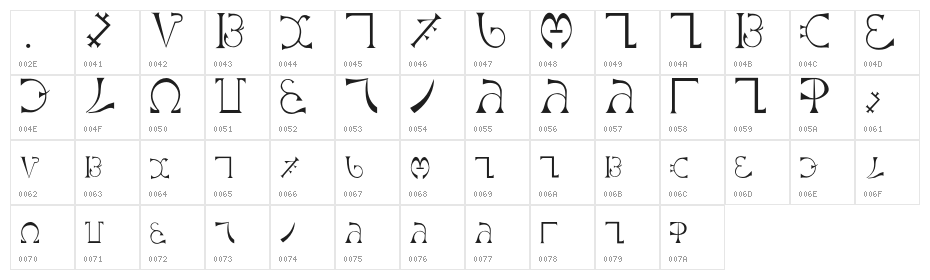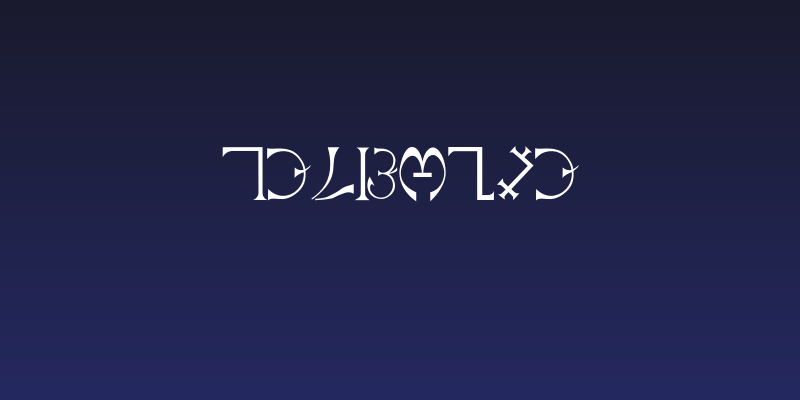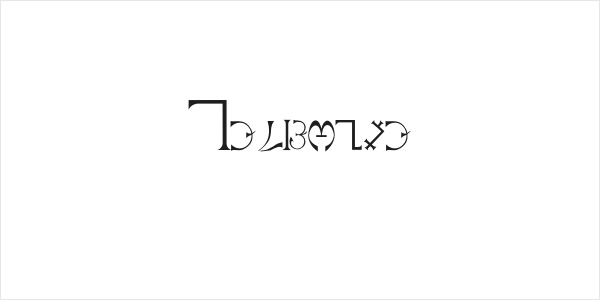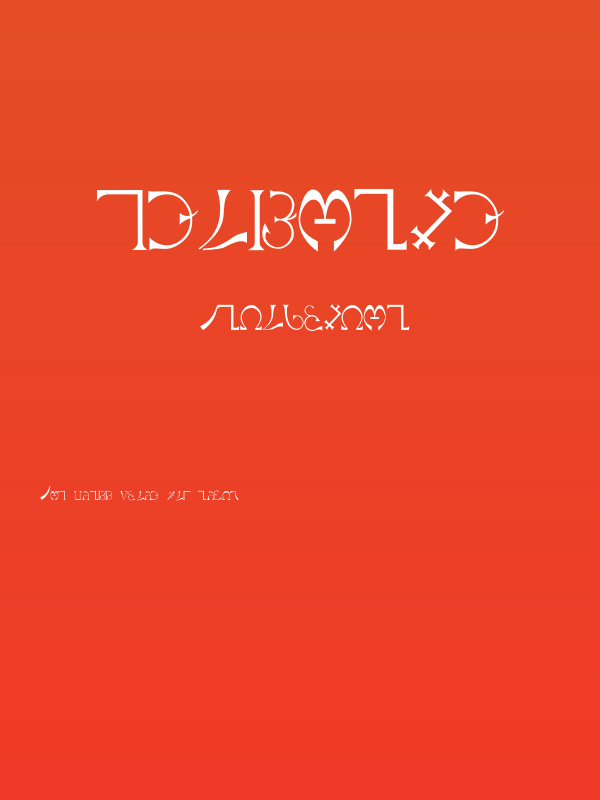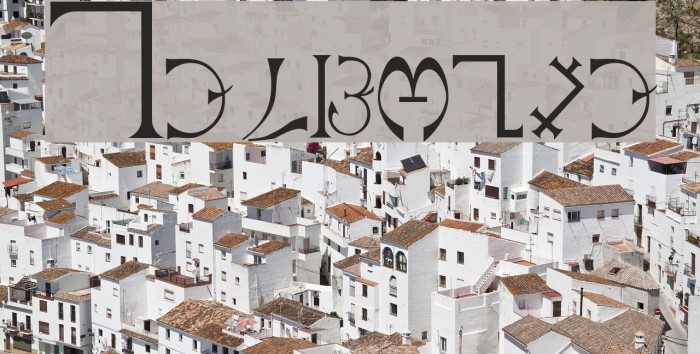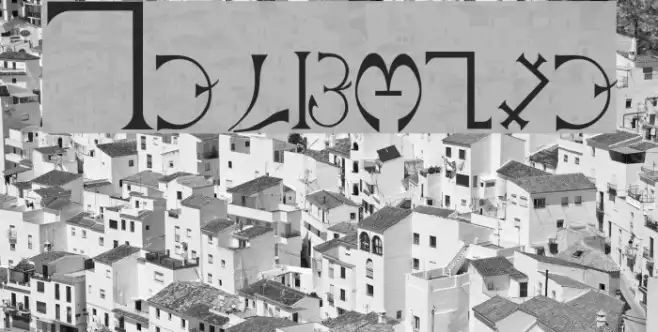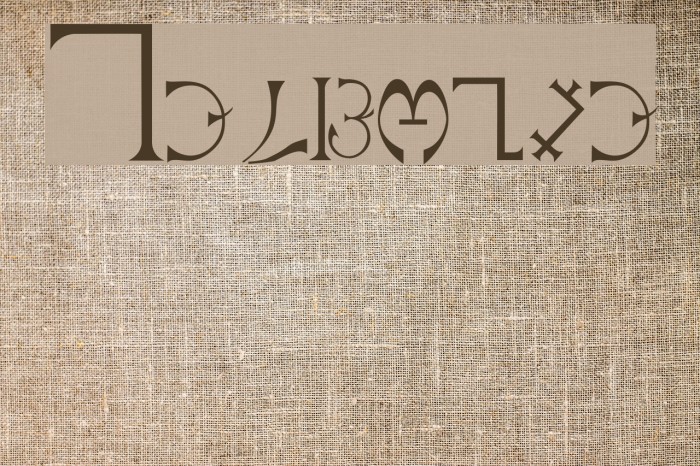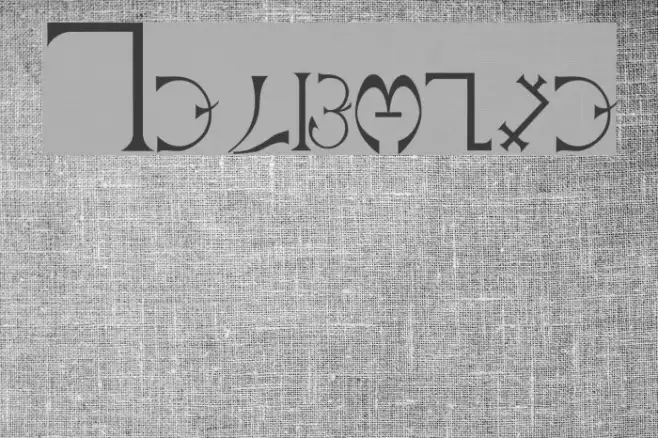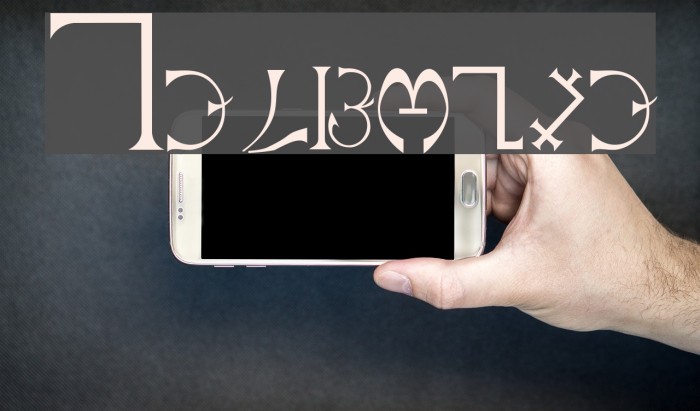
Enochian Font
Enochian Description
This font is a unique and mystical script inspired by ancient alphabets. It features intricate and angular letterforms with sharp edges and decorative elements, giving it an esoteric and otherworldly appearance. The characters are highly stylized, with a mix of geometric shapes and curves that create a sense of mystery and intrigue. The font's design is reminiscent of ancient runes or magical scripts, making it ideal for projects that require a touch of the arcane or the fantastical. Its distinct style is both captivating and enigmatic, perfect for creating a sense of wonder and mysticism.
| Overall Style | Mystical, Esoteric, Ancient |
| Use Case | Logos, Titles, Themed Designs |
| Proposed Projects | Ideal for fantasy book covers, mystical event invitations, or themed artwork. |